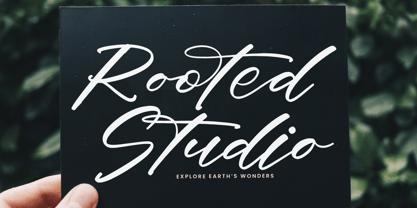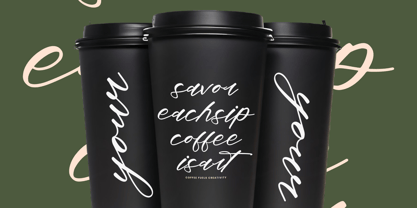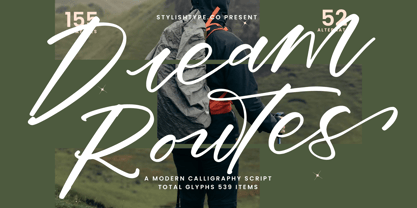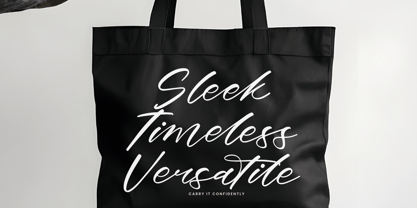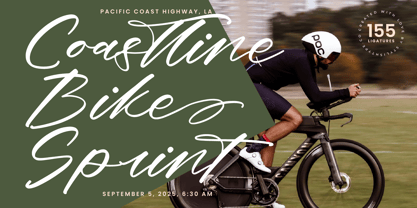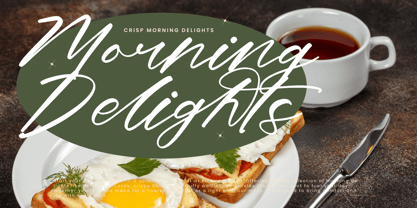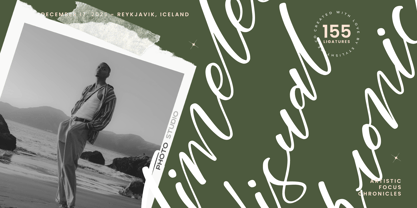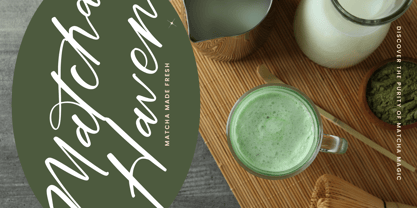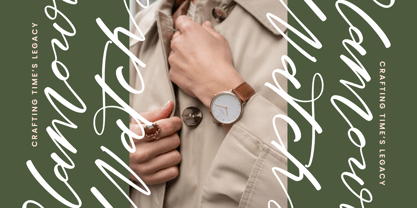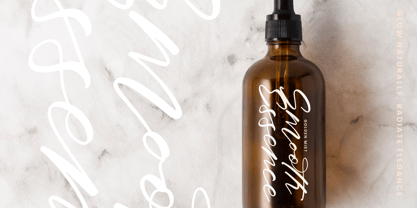
Dream Routes
The Dream Routes Font Family was designed by Heru Utama Putra and published by Stylishtype Studio. Dream Routes contains 2 styles and family package options. More about this family
Dream Routes - Modern Calligraphy Script , from Stylishtype, Suitable for any projects such as: logos, branding projects, homeware designs, product packaging, mugs, quotes, posters, shopping bags, t-shirts, book covers, name card, invitation cards, greeting cards, label, photography, watermark, special events, and all your other luxury and beautiful projects that need a Luxury Script taste.